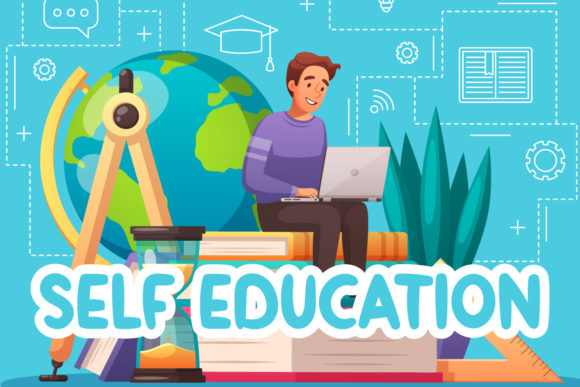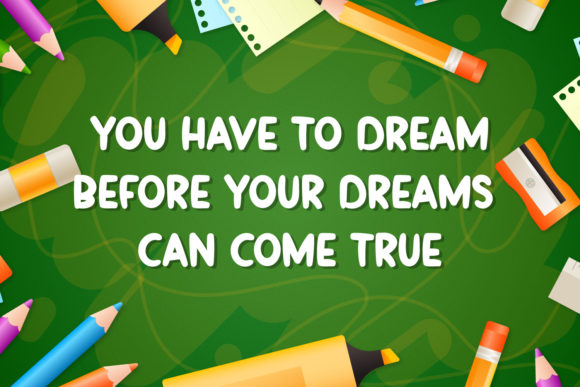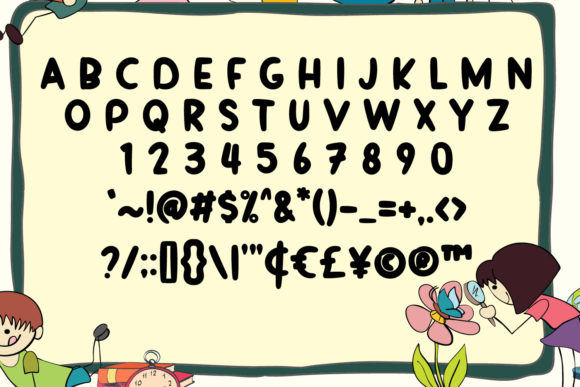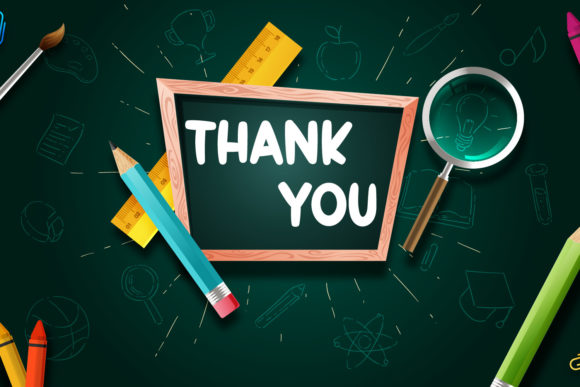
Unleash Your Creativity with Academy Stone Font
Remember the thrill of discovering a new font that perfectly captures the essence of your design? For many designers, that moment is a game-changer. It’s like stumbling upon a hidden treasure that elevates your work to the next level.
Meet Academy Stone Font, a delightful display font that’s sure to bring a smile to your face. Designed to stand out, this font is perfect for adding a touch of whimsy to children-themed designs, or for making a bold statement in any creative project. Its bright and playful personality makes it an instant favorite among designers.
Whether you’re working on a children’s book, a website for a kids’ educational platform, or a marketing campaign for a family-friendly brand, Academy Stone Font is a valuable addition to your design toolkit. Its versatility and charm make it a go-to choice for designers who want to add a dash of fun and personality to their work.
Key Features of Academy Stone Font
- Font Family: Academy Stone, Academy Stone Regular, Academy Stone Italic, Academy Stone Bold, Academy Stone Bold Italic
- Unique Characteristics: Unique, modern, and elegant design; Ideal for academic, educational, and publishing purposes
- Font Weight: Available in Regular, Italic, Bold, and Bold Italic weights for versatility
Academy Stone Font Review
Overall, I found the Academy Stone Font to be a solid choice for anyone looking for a clean, elegant sans-serif font.
- ✨ The font is highly legible, making it perfect for body text and longer passages.
- ✨ The font’s sleek and modern design makes it ideal for use in contemporary branding and design projects.
- ✨ The font is available in a range of weights, from light to bold, allowing for great flexibility in design.
- ⚠️ The font may not be the best choice for use in smaller sizes, as the letters can become difficult to read.
- ⚠️ The font lacks a lot of personality, making it less suitable for use in creative or artistic projects.
- ⚠️ The font may not be as versatile as some other sans-serif fonts on the market.
I would recommend the Academy Stone Font to anyone looking for a clean, modern font for use in a variety of design projects. While it may not be the most exciting or unique font, it is a solid choice that is sure to deliver professional results.
Tips for Getting the Most Out of Academy Stone Font
Here are some tips for getting the most out of Academy Stone Font:
- Use it for headings and titles to add a touch of elegance and sophistication.
- Pair it with a bold font for a striking contrast.
- Experiment with different font sizes and colors to achieve the desired visual effect.
- Use it for academic or professional projects to convey a sense of expertise and authority.
Playfair Display is an elegant and luxurious serif font, perfect for creating high-end branding and advertising materials. It has a classic feel with intricate details, making it ideal for use in logos, titles, and headings. Comparison to Academy Stone Font: While Academy Stone Font has a more rustic and vintage feel, Playfair Display is more refined and sophisticated. Use Playfair Display when you want to convey luxury and elegance. Great Vibes is a modern and elegant script font, suitable for creating a sense of sophistication and refinement. It’s perfect for use in titles, headings, and body text in a variety of contexts, from branding to editorial design. Comparison to Academy Stone Font: Great Vibes has a more fluid and organic feel compared to the geometric and vintage-inspired Academy Stone Font. Use Great Vibes when you want to add a touch of elegance and sophistication to your design. Carolyna Pro is a modern and elegant sans-serif font, designed for use in a variety of contexts, from branding and advertising to editorial design and digital media. It’s highly legible and versatile, making it an excellent choice for body text and titles. Comparison to Academy Stone Font: Carolyna Pro has a more modern and streamlined feel compared to the vintage-inspired Academy Stone Font. Use Carolyna Pro when you want to create a clean and contemporary design aesthetic. Pacifico is a beautiful and elegant script font, inspired by the ocean and the art of calligraphy. It’s perfect for use in titles, headings, and body text in contexts that require a touch of elegance and sophistication, such as branding, advertising, and editorial design.
Create a nostalgic travel brochure that evokes a sense of adventure and exploration. The Academy Stone Font pairs perfectly with vintage-style illustrations and distressed textures. To use Academy Stone Font in this project: Tips for combining with other design elements: Give your wedding invitations a unique and elegant touch with the Academy Stone Font. Pair it with a minimalist design and a bold color scheme for a striking contrast. To use Academy Stone Font in this project: Tips for combining with other design elements: The Academy Stone Font includes the following font formats: OTF (OpenType Font), TTF (TrueType Font), WOFF (Web Open Font Format), and EOT (Embedded OpenType). This allows for compatibility with a wide range of operating systems and software applications. Yes, the Academy Stone Font is licensed for commercial use. However, please ensure you have a valid license and follow the terms of use as specified in the license agreement. This may include requirements for font embedding, modification, or redistribution. To install the Academy Stone Font, follow these steps: 1) Download the font files from the designated location. 2) Extract the font files from the zip archive (if applicable). 3) Copy the font files to the ‘Fonts’ directory on your computer (usually located at C:\Windows\Fonts on Windows or ~/Library/Fonts on Mac). 4) Restart your application or system to ensure the font is recognized. For optimal readability, we recommend using the Academy Stone Font with a font size between 14 and 18 points, and a line height of at least 1.5 times the font size. This will provide a clear and comfortable reading experience, especially in digital applications.Playfair Display
Creative Projects Using Academy Stone Font
Project 1: Timeless Travel Brochures
Project 2: Modern Wedding Invitations